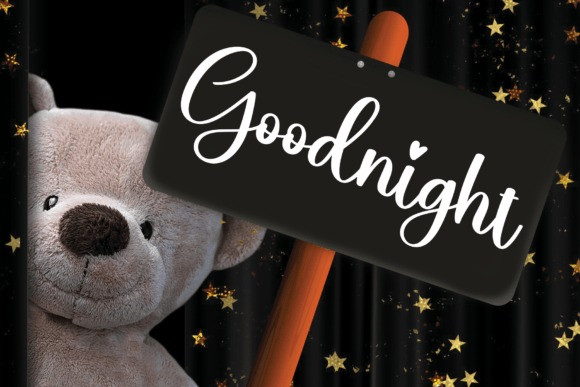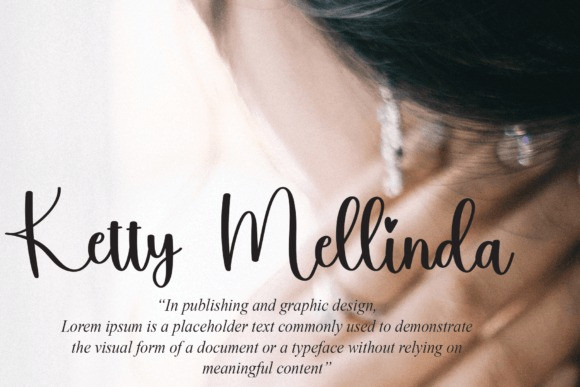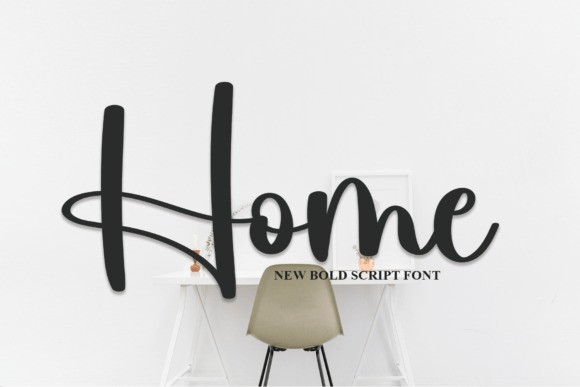
Home Script Font
Home Script Font is a delicate and elegant handwritten font. Its distinct and well-balanced letters make this font a masterpiece. Fall in love with its incredibly versatile style and use it to create spectacular designs!